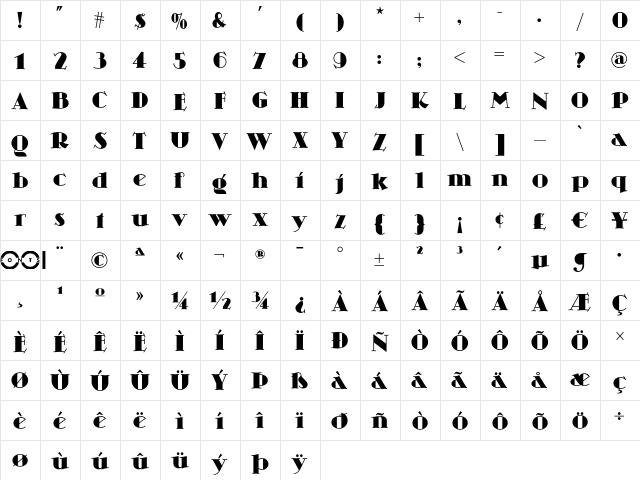
Skittles n Beer NF Regular
Design Context for Skittles n Beer NF Typeface
Skittles n Beer NF is a composed and adaptable typeface that performs quietly and consistently across a wide range of design contexts.
Pro Tip: Use Skittles n Beer NF in both headline and body roles to test its range before committing to a single application.